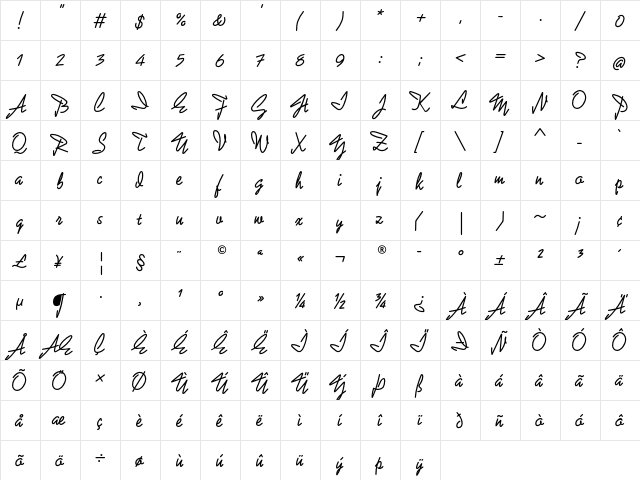
Iova Nova Regular
Design Context for Iova Nova Typeface
Iova Nova takes a measured approach to typography — its balanced proportions and neutral character make it a reliable workhorse for both digital and print work.